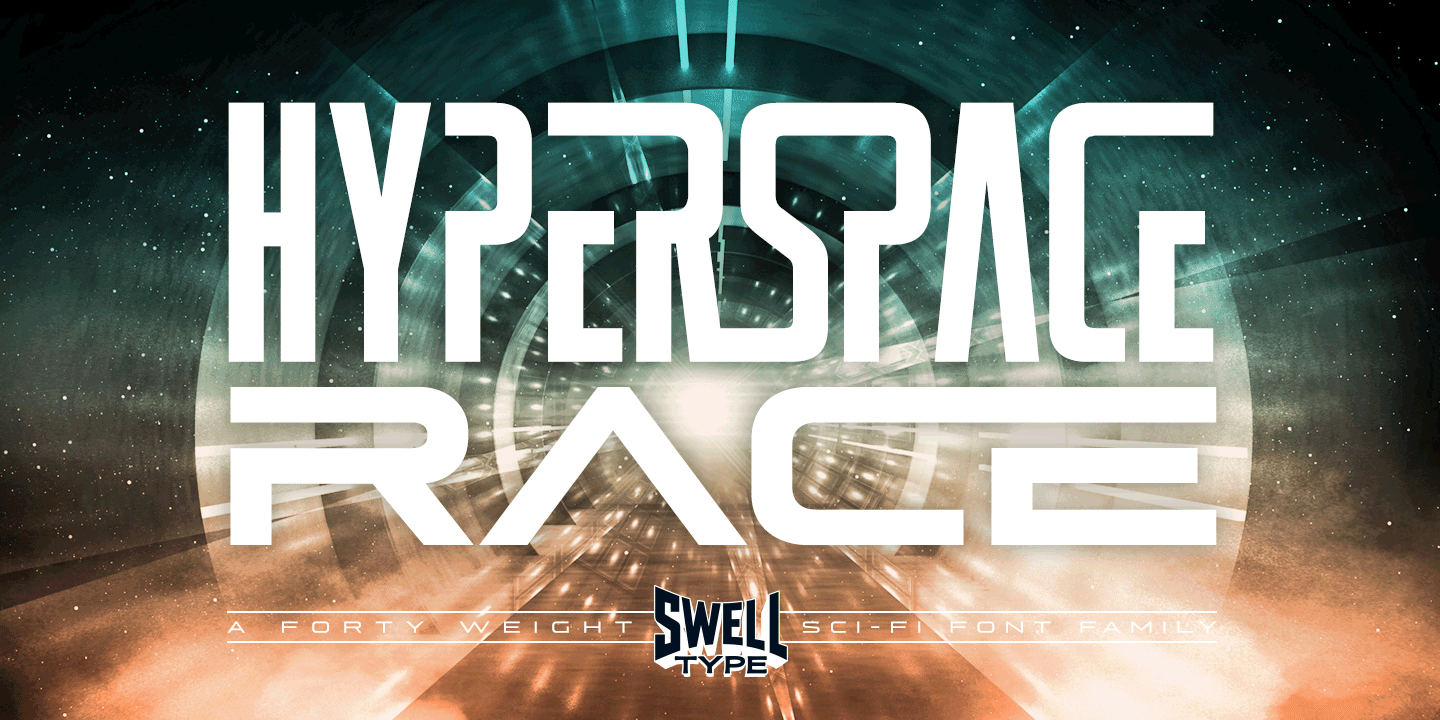
Hyperspace Race Font is a dynamic and futuristic typeface, perfectly designed to inject energy and a sense of speed into your projects. Imagine it as the thrilling title for a science fiction movie poster, providing the slick, high-tech branding for a gaming convention, or adding an electrifying edge to an esports team's logo. Its often geometric, sharp, and streamlined design makes it an excellent choice for technology advertisements, futuristic product packaging, digital interfaces that demand a modern feel, and any creative work that aims to evoke speed, innovation, or a cosmic adventure. It performs exceptionally well in large display sizes, making a powerful visual statement in both print and digital media.
What makes Hyperspace Race Font truly exciting is its immediate ability to transport the viewer to a world of advanced technology and thrilling journeys. It often incorporates elements like sharp angles, aerodynamic curves, or segmented characters that mimic digital displays, giving it an unmistakable sci-fi or high-velocity aesthetic. This inherent dynamism allows designers to create visuals that feel fast-paced and cutting-edge, instantly grabbing attention and conveying a sense of forward momentum. Its unique character makes it ideal for projects where you want to communicate innovation, excitement, and a glimpse into the future. It’s not just a font; it’s a portal to another dimension of design.
The Hyperspace Race Font family typically offers a focused set of styles designed to maximize its impact within its specific niche. You can generally expect to find a standard Regular weight, often accompanied by a more impactful Bold version for headlines and strong emphasis. Some versions might also include unique stylistic alternates, ligatures, or special characters that further enhance its futuristic appeal and provide more creative options for logo design and prominent display text. While it might not have the extensive range of a traditional text typeface, the available styles are carefully crafted to ensure that Hyperspace Race Font Free Download provides a powerful and visually striking addition to your creative toolkit for all things fast and futuristic.